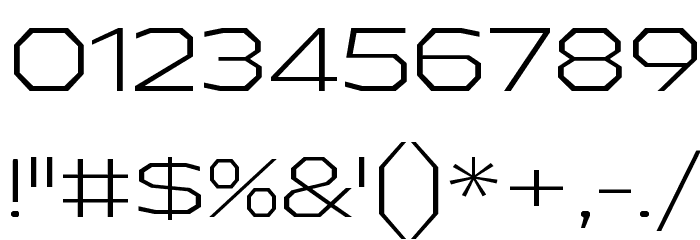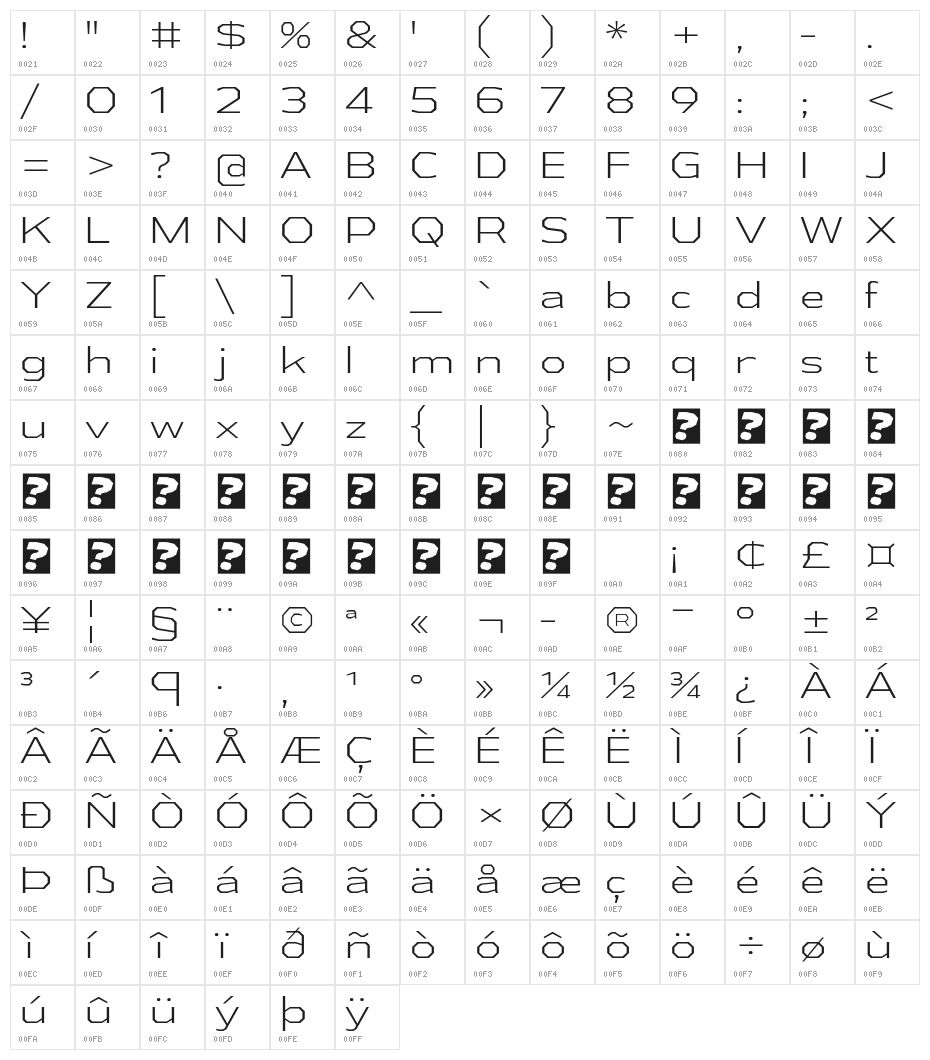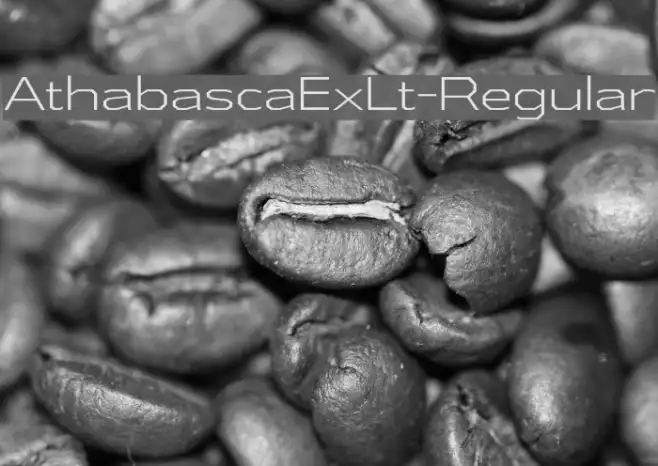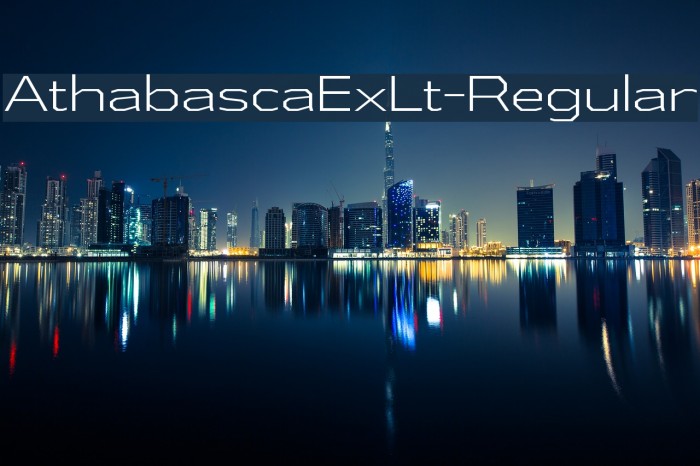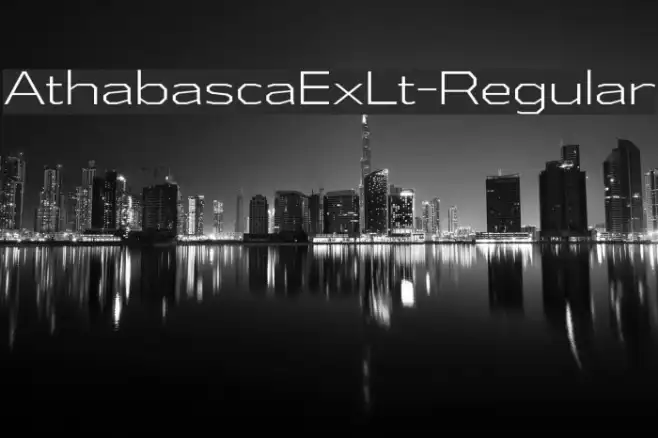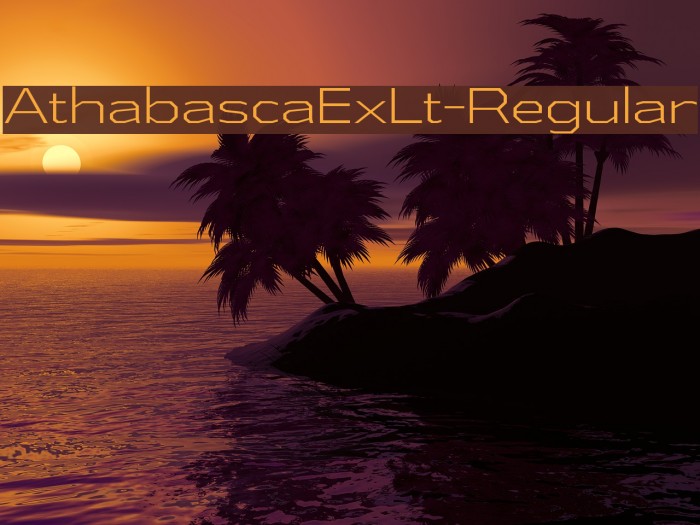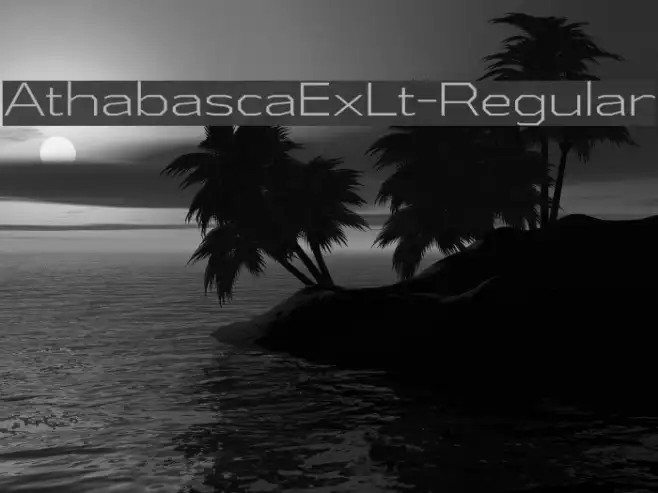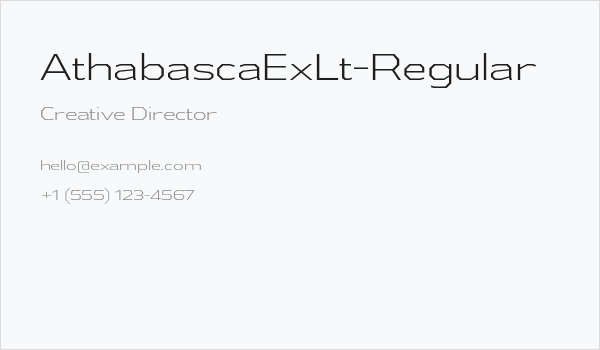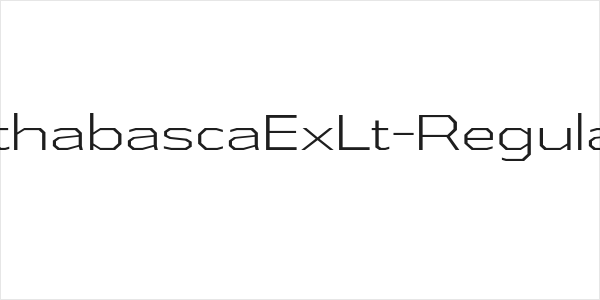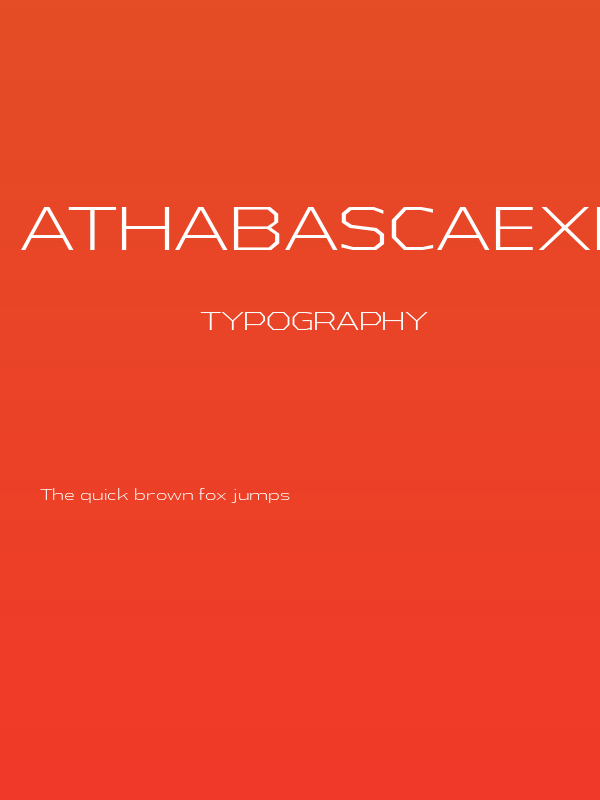
AthabascaExLt-Regular Font
AthabascaExLt-Regular Description
This font features a geometric and modern design with clean, straight lines and angular edges. The uppercase and lowercase letters maintain a consistent height, creating a uniform appearance. The numerals are distinct and align well with the overall style, enhancing readability. Special characters are crafted with precision, complementing the font's structured aesthetic. The font's design is minimalistic yet striking, making it suitable for various applications where clarity and a contemporary look are desired.
| Proposed Projects | Ideal for tech branding, modern posters, digital interfaces, and architectural designs. |